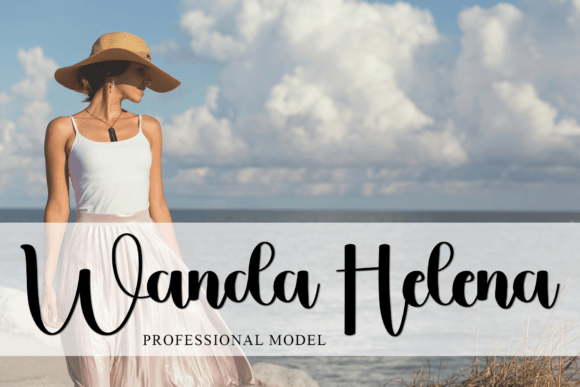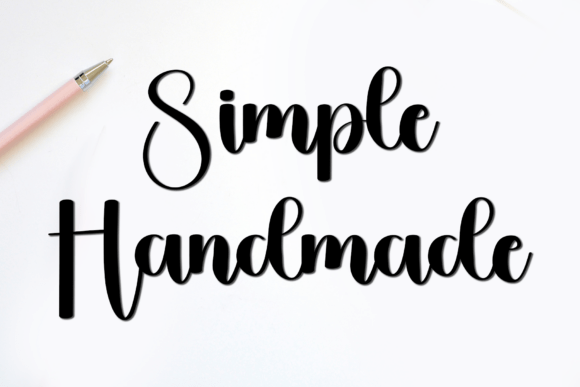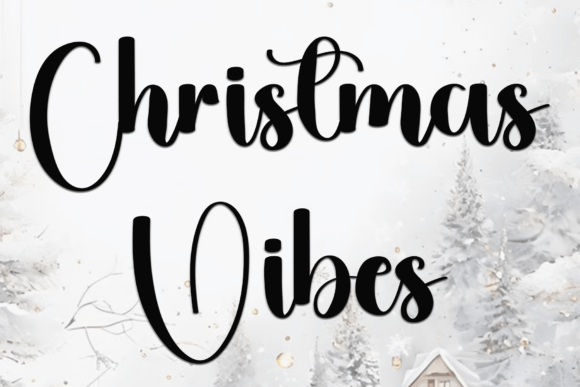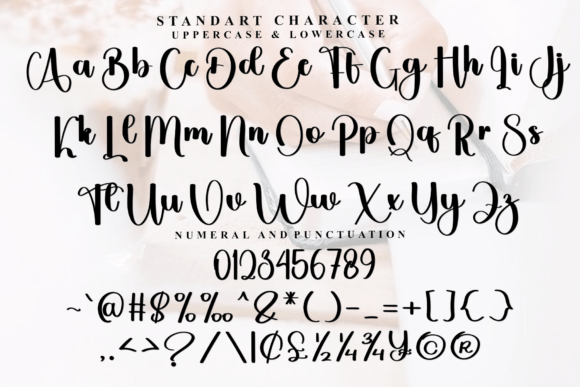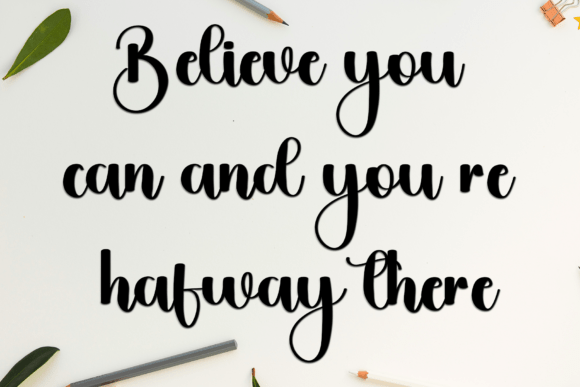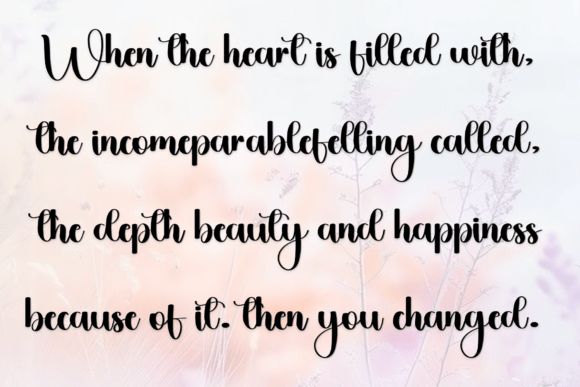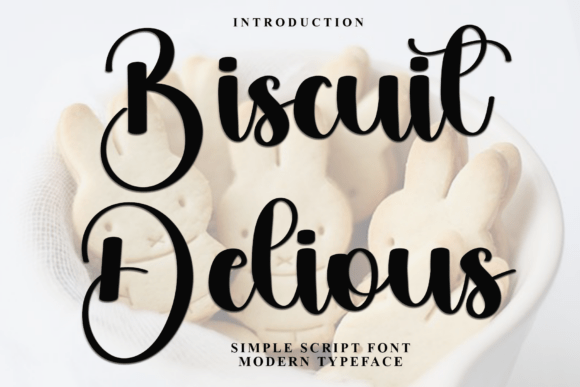
Biscuit Delious Font: Elevate Your Designs with a Unique and Eye-Catching Style
Are you a designer or crafter looking for a font that can add a touch of personality to your creative projects? Look no further than the Biscuit Delious font. This beautiful and eye-catching font is designed with a soft, unique touch that sets it apart from other fonts. Its distinctive strokes give it a special character, making it meaningful and versatile for future use.
What Makes Biscuit Delious Font Stand Out?
The Biscuit Delious font is a true standout in the world of typography. Its soft and unique design makes it perfect for a wide range of creative projects, from design and crafts to artistic and creative works. The font’s distinctive strokes and characters give it a special charm that will make your designs stand out from the crowd.
The Benefits of Using Biscuit Delious Font
So why should you choose Biscuit Delious font for your next project? Here are just a few of the benefits of using this unique and eye-catching font:
- Perfect for Design Projects: Whether you’re working on a logo, brochure, or website, Biscuit Delious font is the perfect choice. Its soft and unique design makes it ideal for a wide range of design projects.
- Ideal for Crafts: If you’re a crafter looking for a font to use in your handmade projects, Biscuit Delious is a great choice. Its distinctive strokes and characters will add a touch of personality to your crafts.
- Natural Font Style: The Biscuit Delious font has a natural font style that will enhance your designs and make them appealing to a wide range of audiences.
How to Use Biscuit Delious Font in Your Designs
Using Biscuit Delious font in your designs is easy. Here are a few tips to get you started:
- Pair it with Other Fonts: Biscuit Delious font pairs well with other fonts, making it easy to create a unique and eye-catching design.
- Use it in Headings and Titles: The Biscuit Delious font is perfect for use in headings and titles, where its distinctive strokes and characters can really shine.
- Experiment with Different Sizes and Colors: Don’t be afraid to experiment with different sizes and colors of the Biscuit Delious font to create a unique and eye-catching design.
In conclusion, the Biscuit Delious font is a beautiful and eye-catching font that is perfect for designers and crafters looking to add a touch of personality to their creative projects. Its soft and unique design, distinctive strokes, and versatility make it a great choice for a wide range of applications. Whether you’re working on a design project, craft, or artistic work, Biscuit Delious font is sure to elevate your designs and make them appealing to a wide range of audiences.